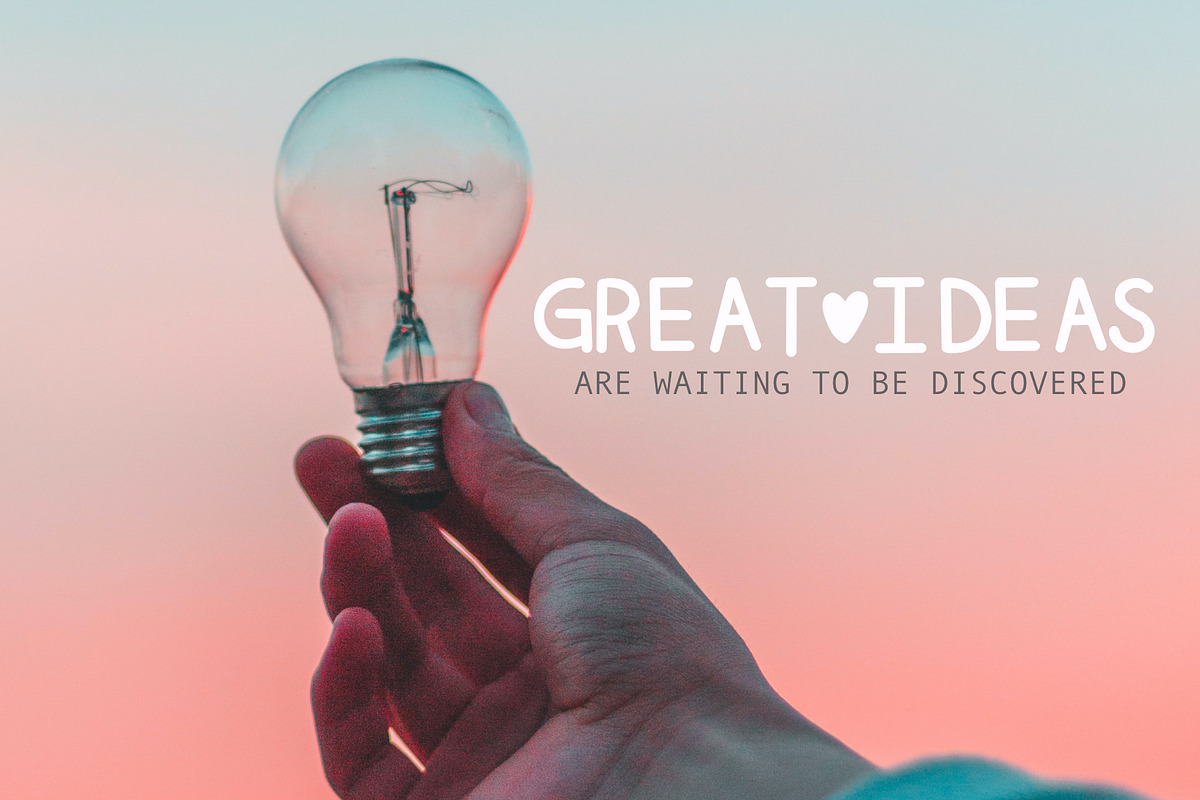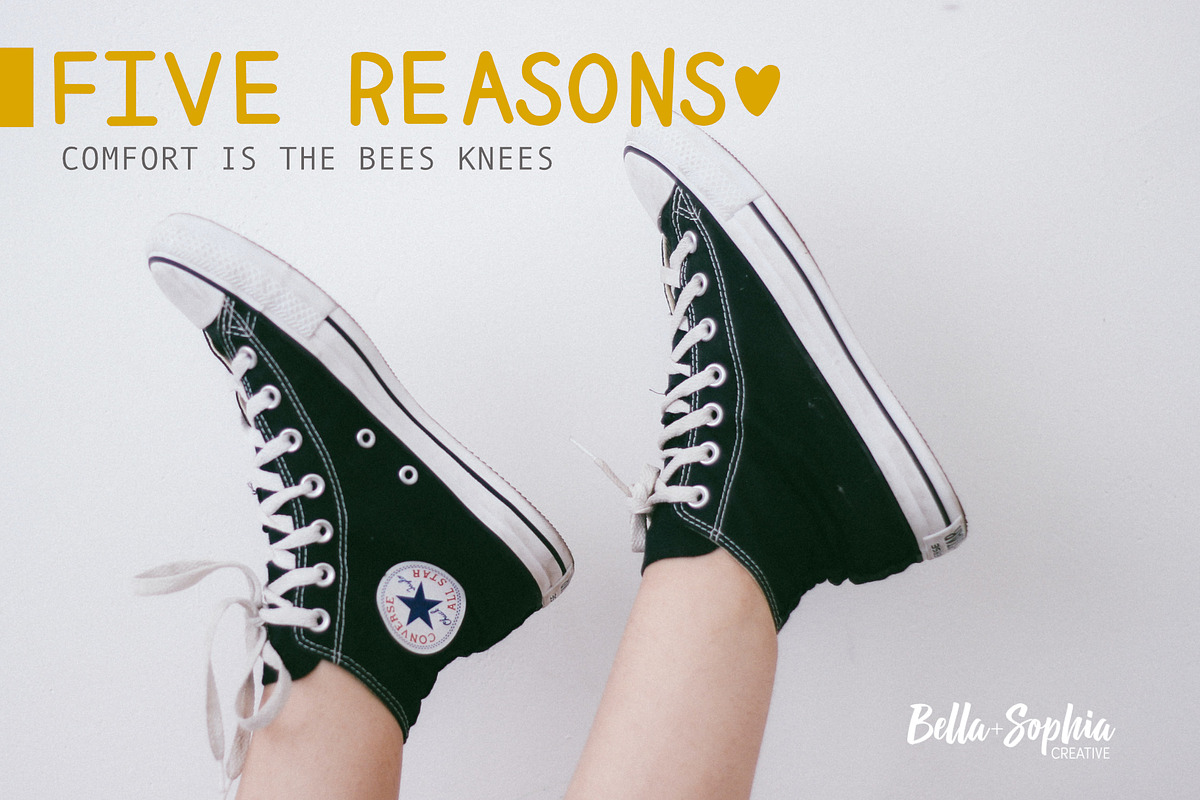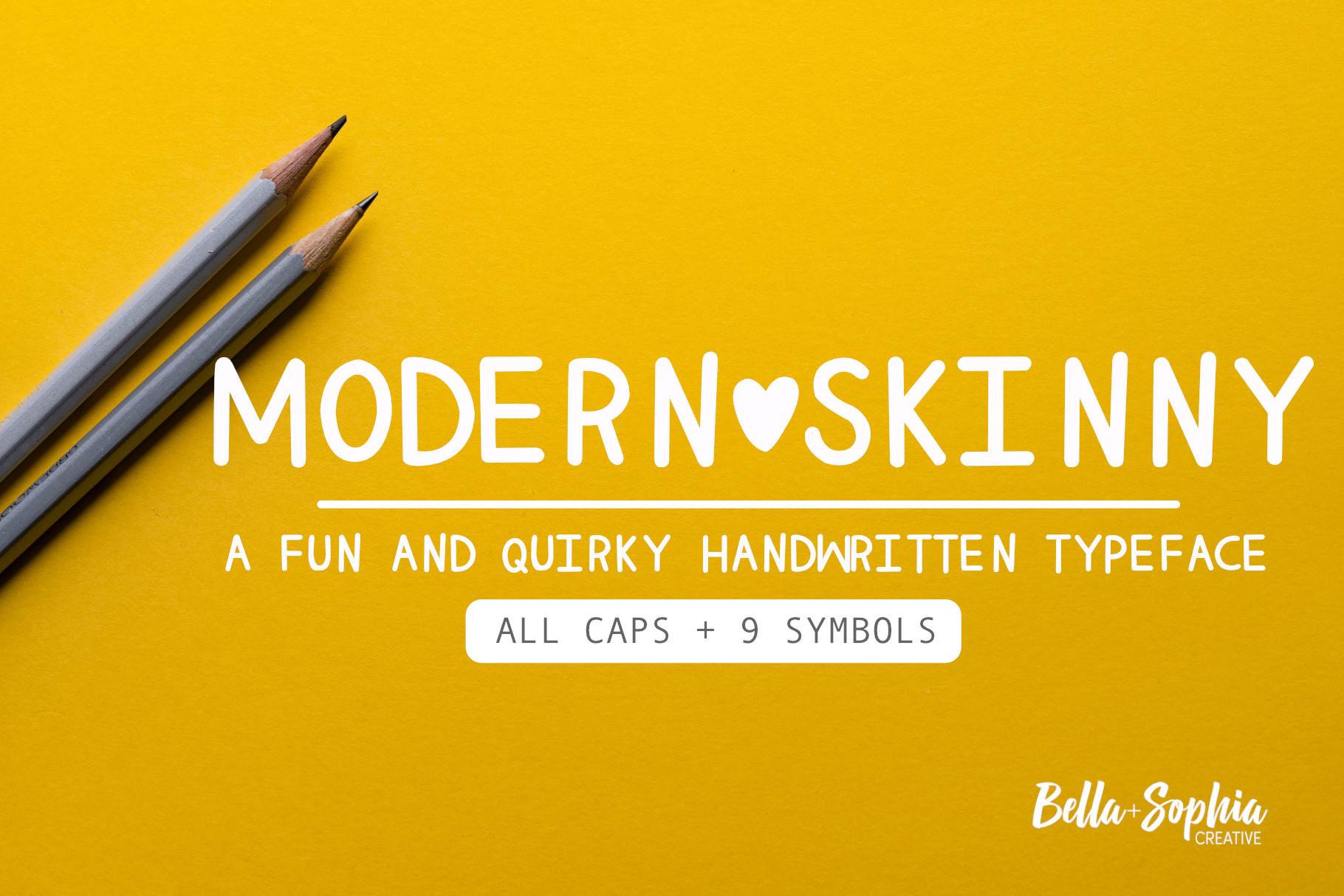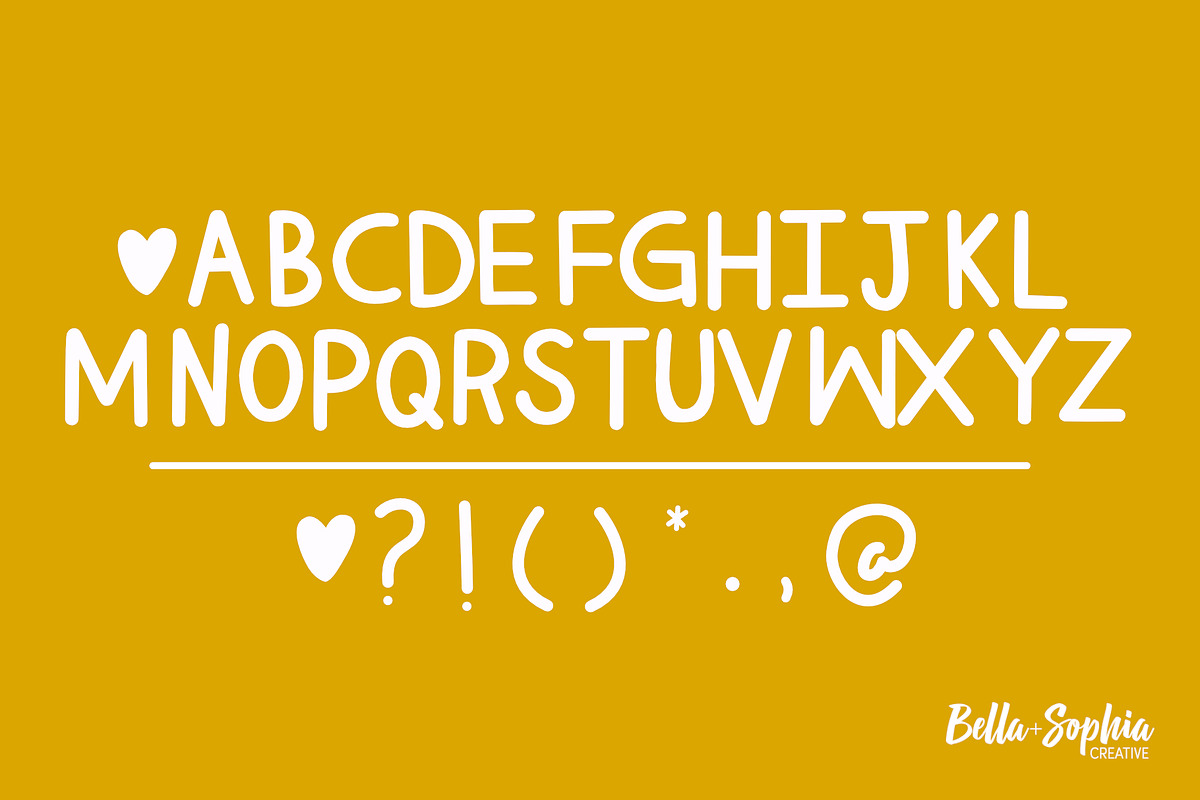
Modern Skinny Handdrawn display font
Introducing my new typeface, Modern Skinny - A quirky, but stylish all caps display san serif typeface, that comes in one style and includes 10 additional special characters. Please note you need to be in caps lock as this is an all caps type face. Special characters associated with same character on your keyboard and the dash will open up the heart special character
This is primarily a display font (but can also be used for body copy) that I recommend using in the following types of work; magazines (titles and layouts), logos and branding, invitations, quotes, blog headers, posters, and advertising. This is also great for wedding greeting cards, logos, branding materials, business cards, quotes, posters, Cricut artwork and more!